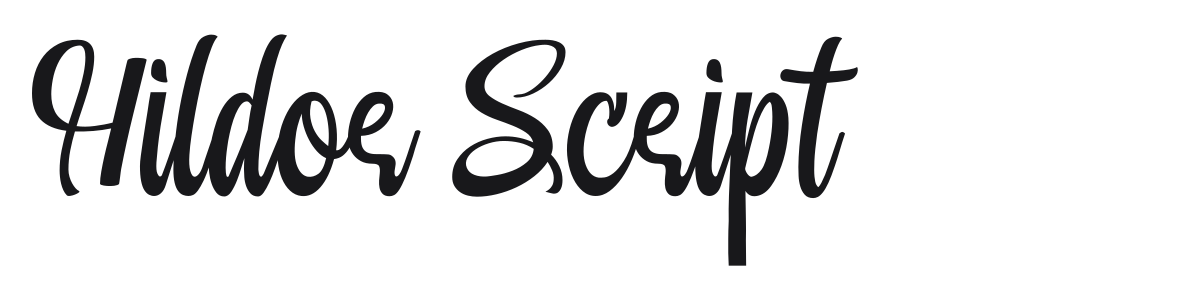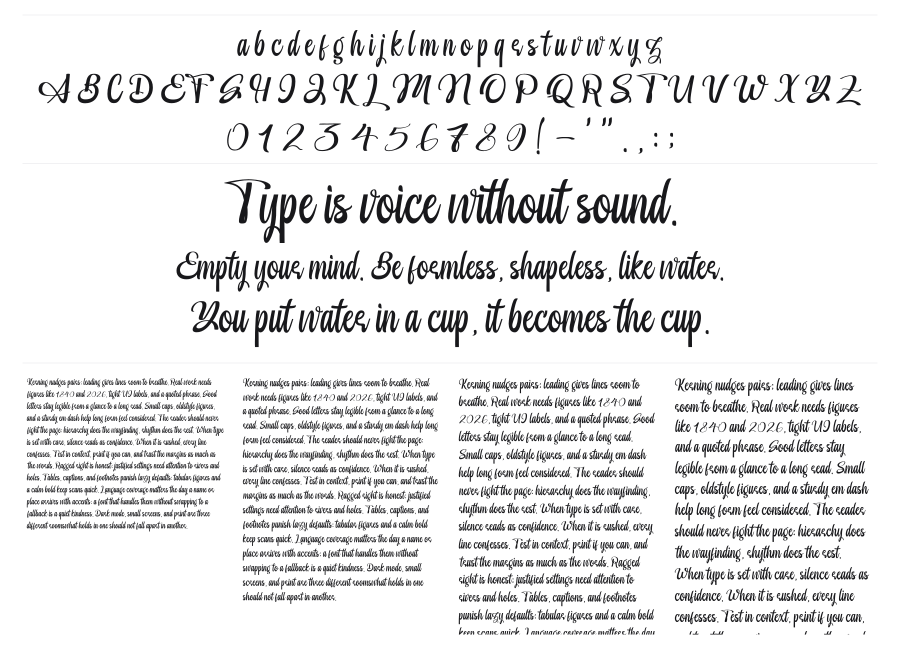
Hildor Script
Hildor Script is a bold, flowing casual script with confident thick-to-thin strokes and a lively bouncy baseline. The connected letters and rounded terminals give it an approachable, handmade quality that feels current without trying too hard. It works well for logotypes, packaging, and any headline that needs warmth.